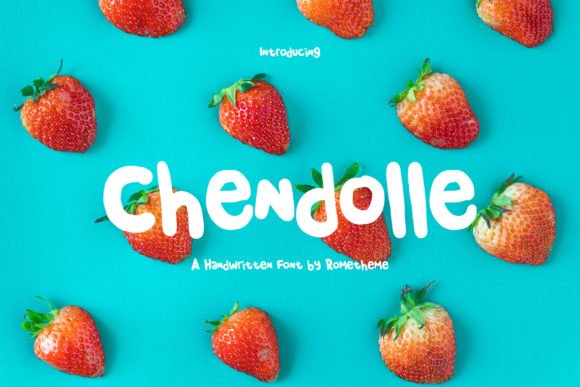
Introduction to Chendolle Font
Chendolle is a fun and quirky display font.
A bit childish, this font will be the absolute best choice for each of your school projects .